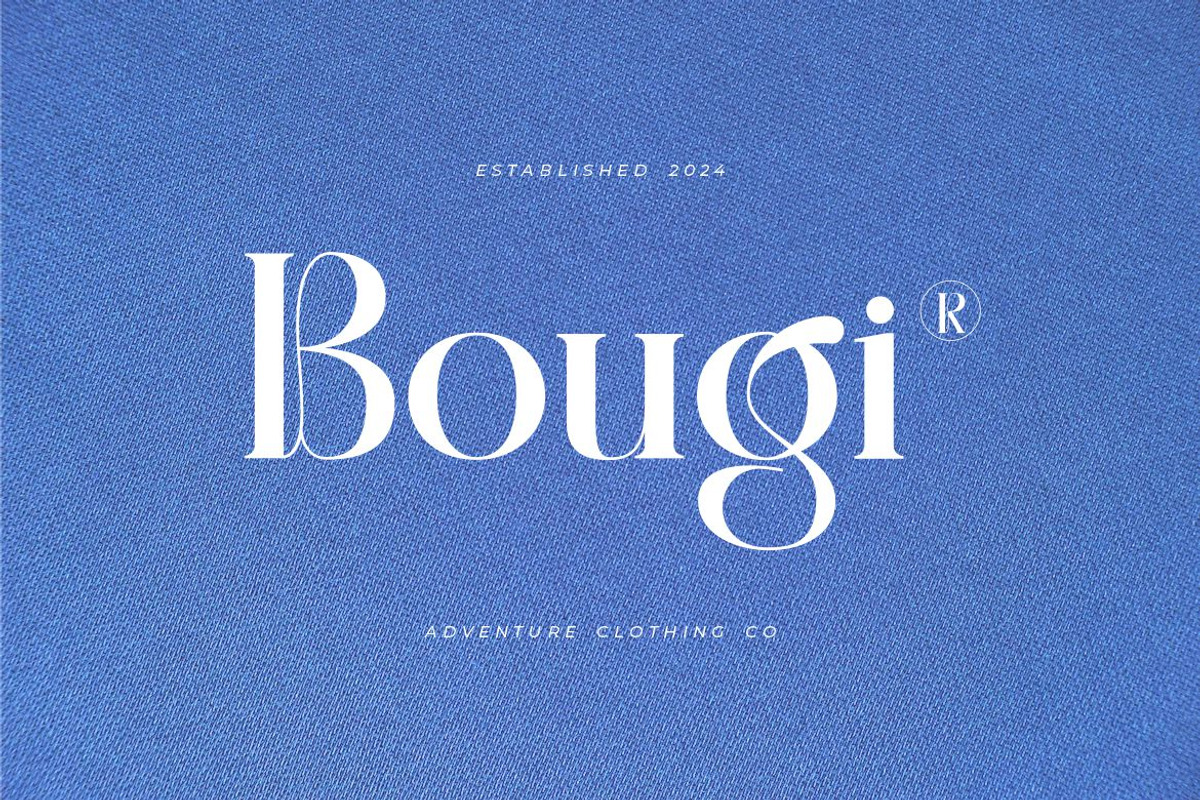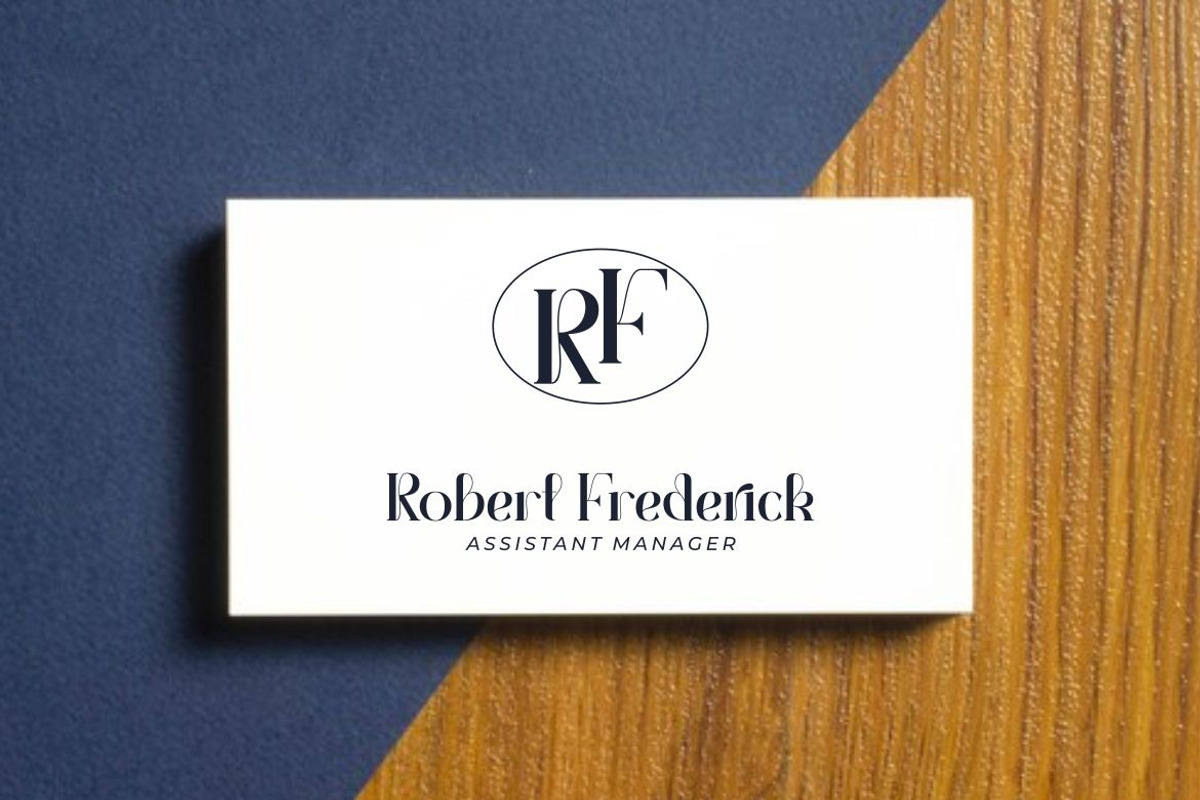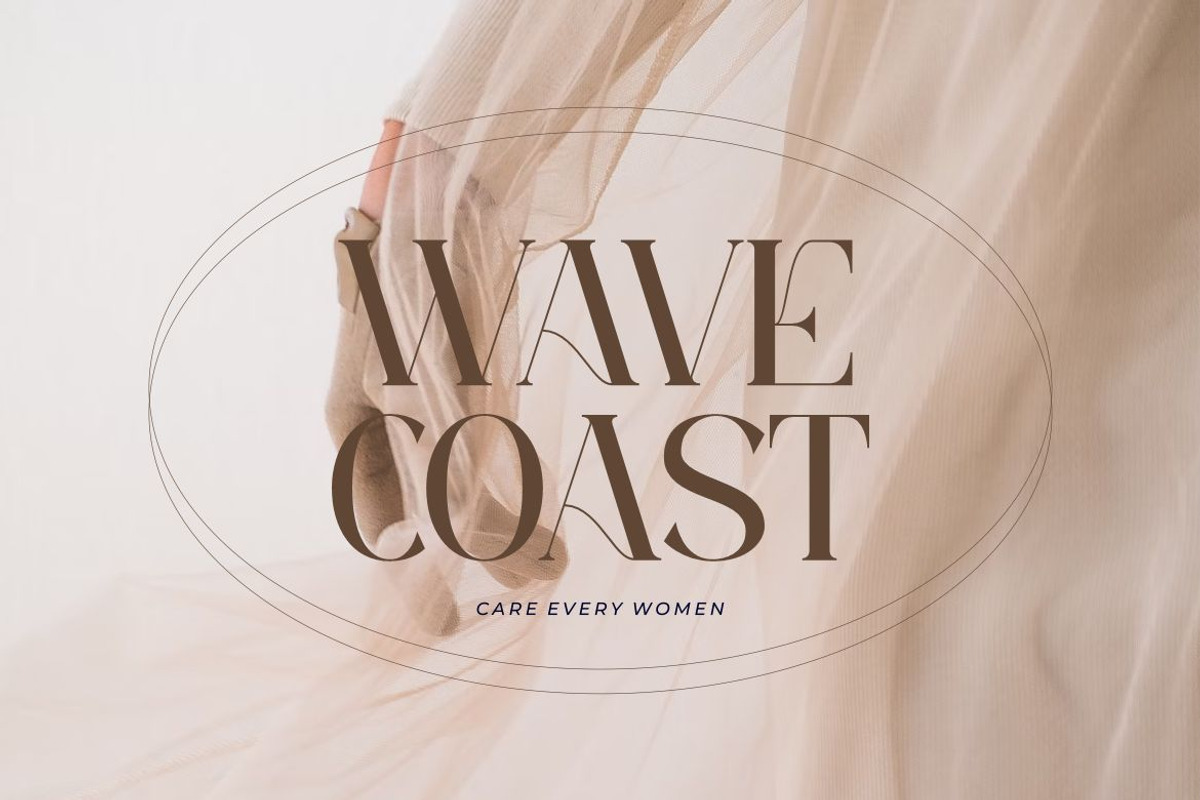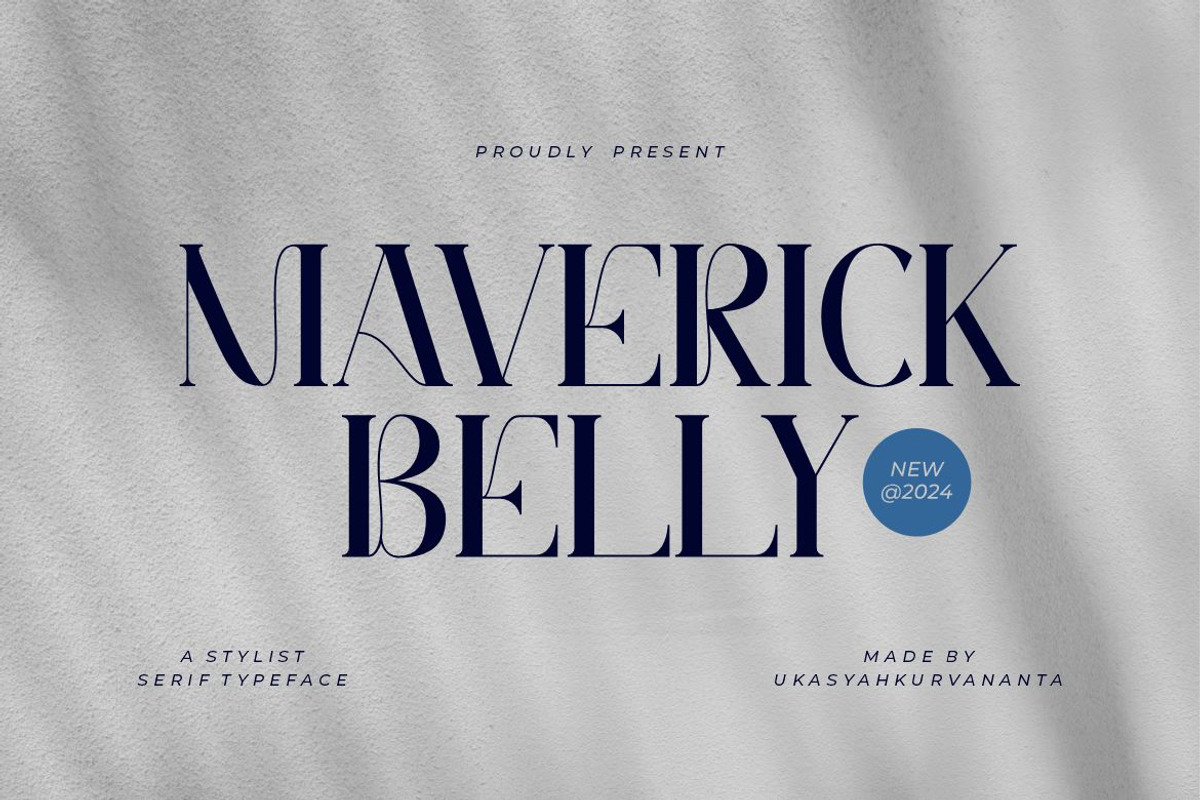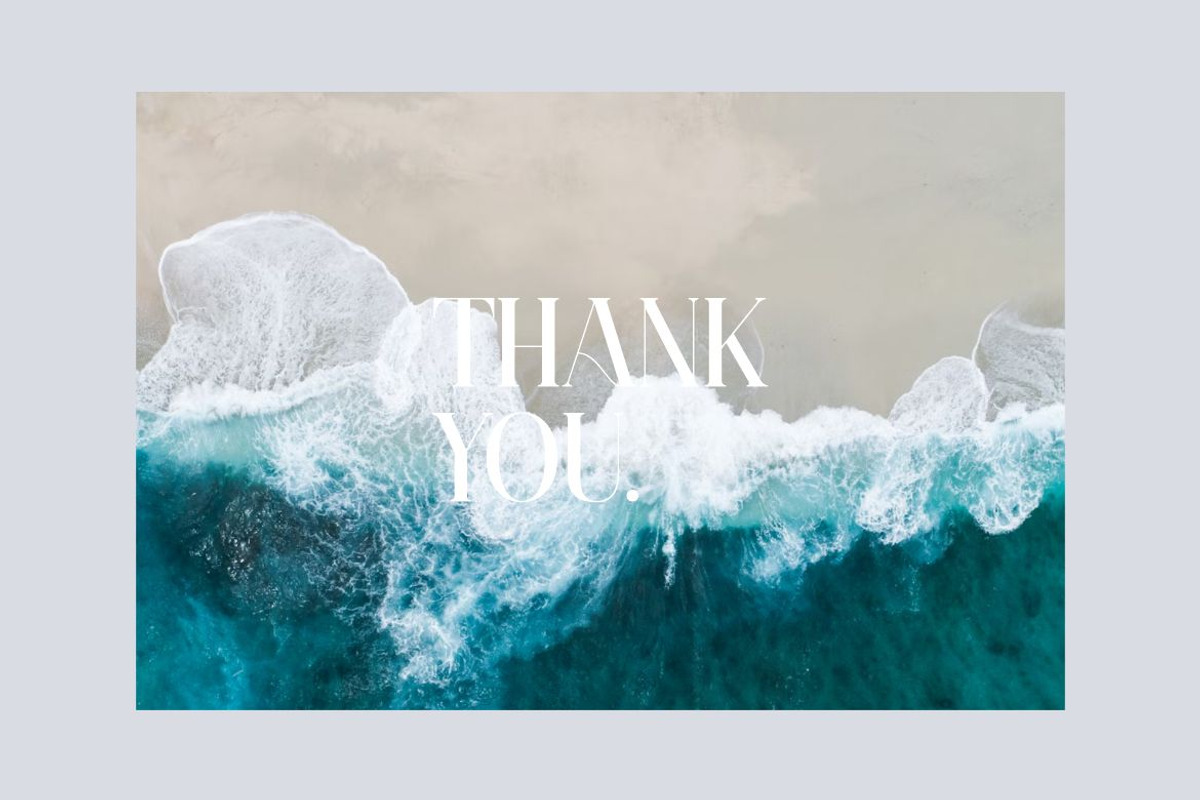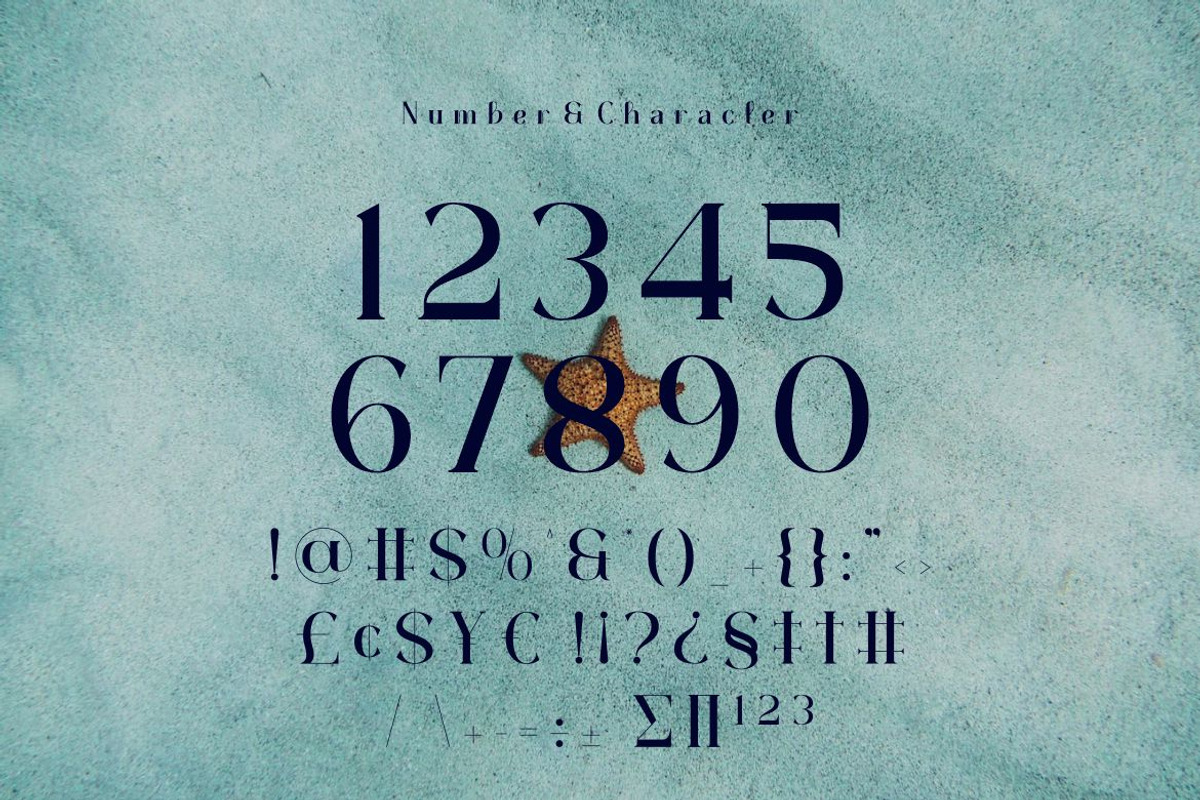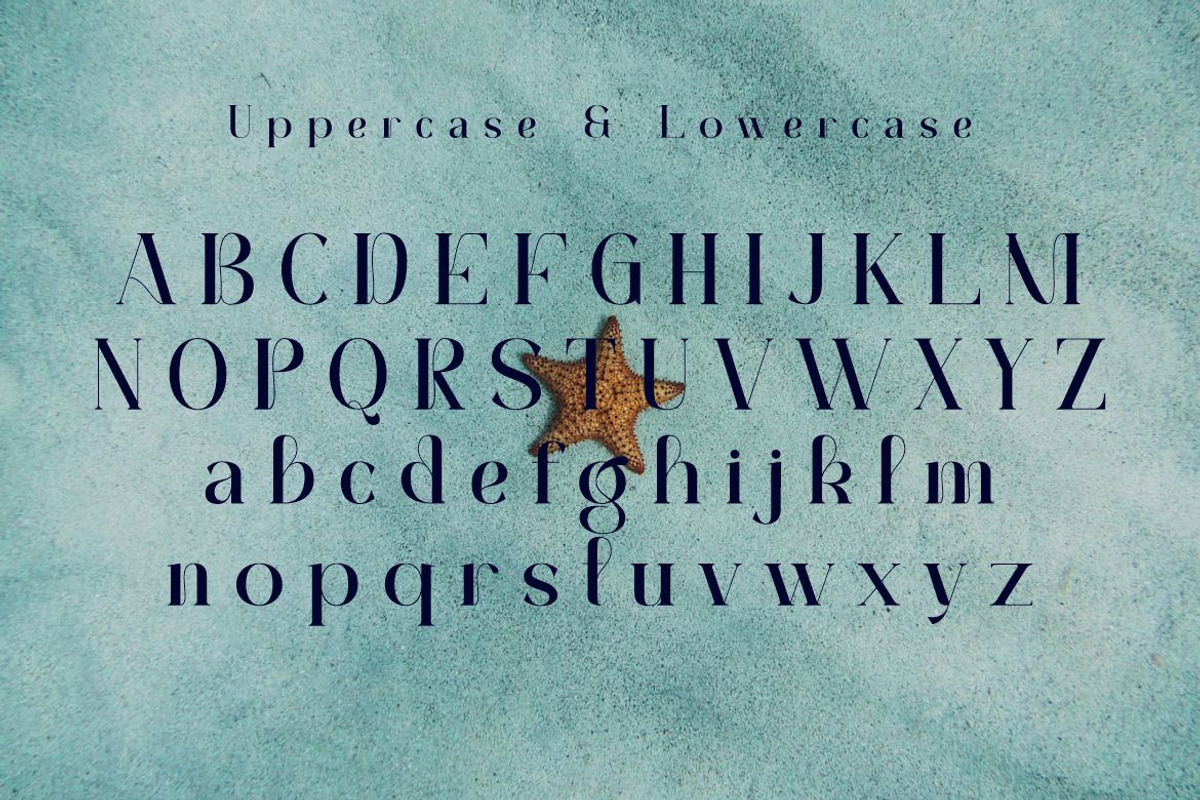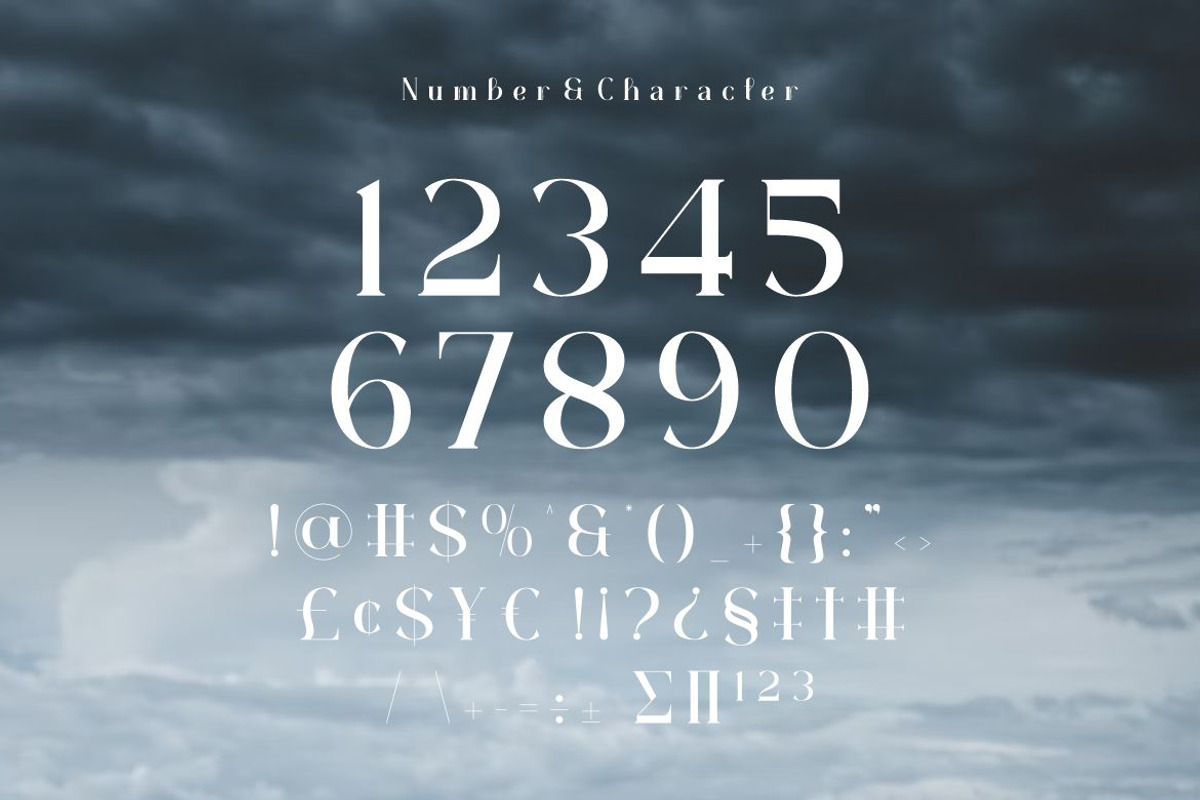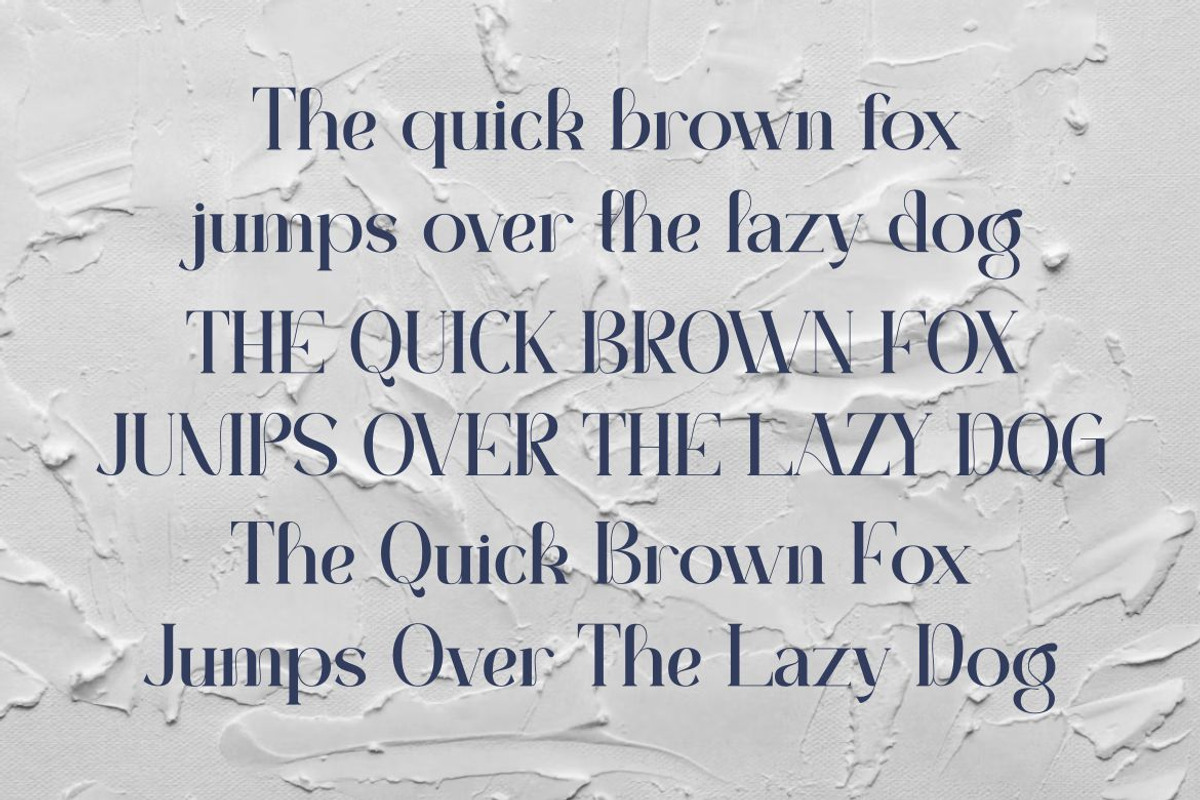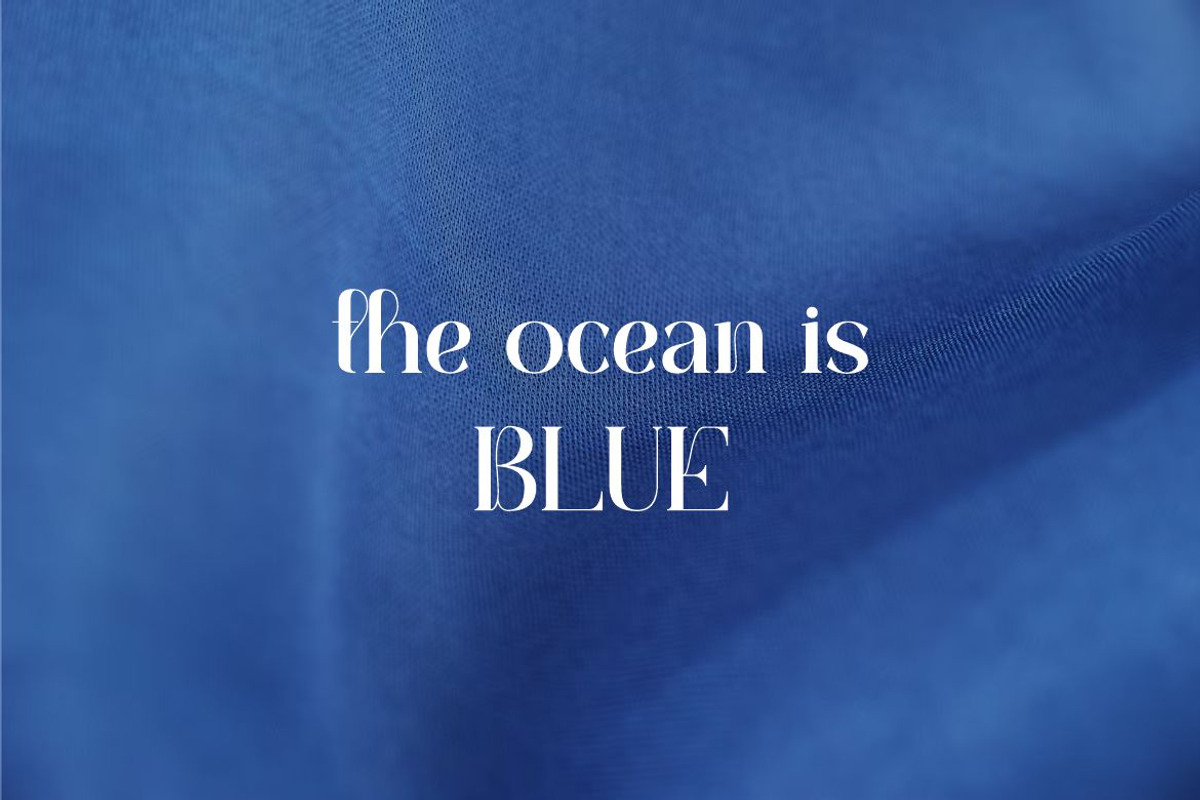
MAVERICK BELLY
MAVERICK BELLY font includes capital letters, numbers, and various punctuation marks. serif font with a stylish modern style. Created for posters, web design, branding, illustrations, badges and several other works